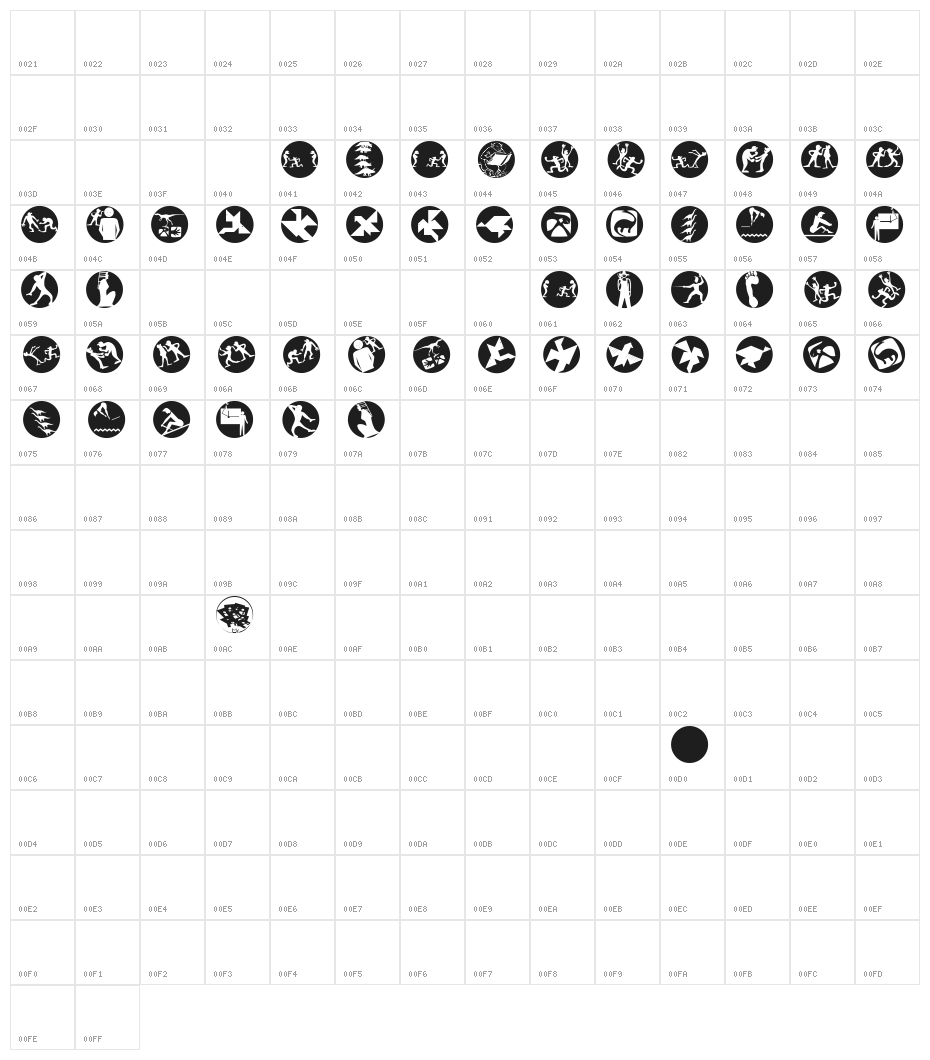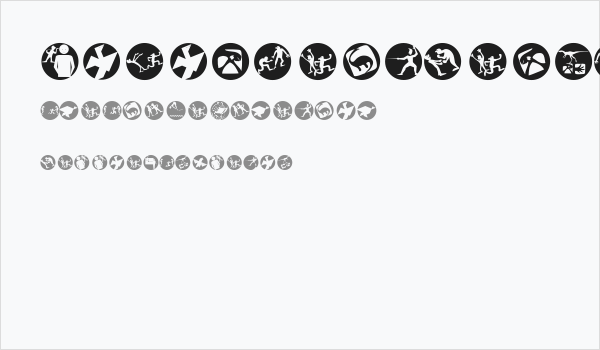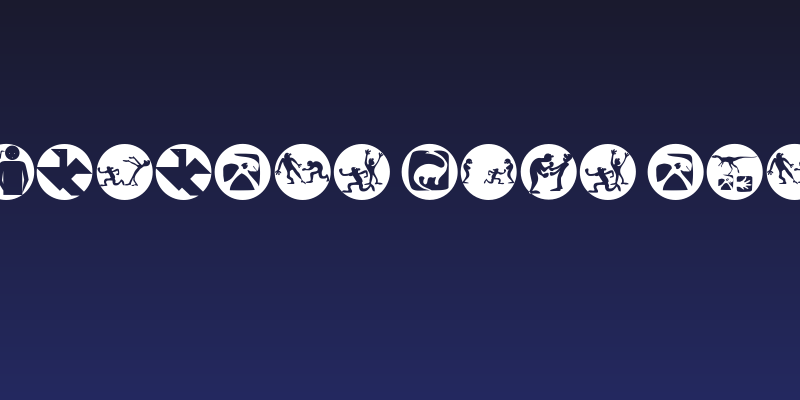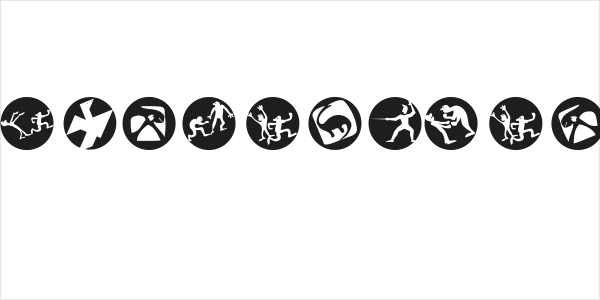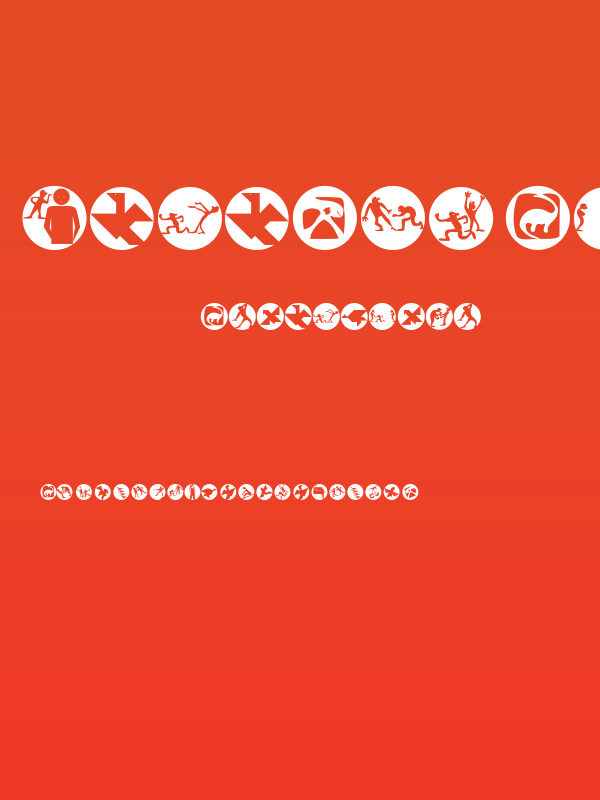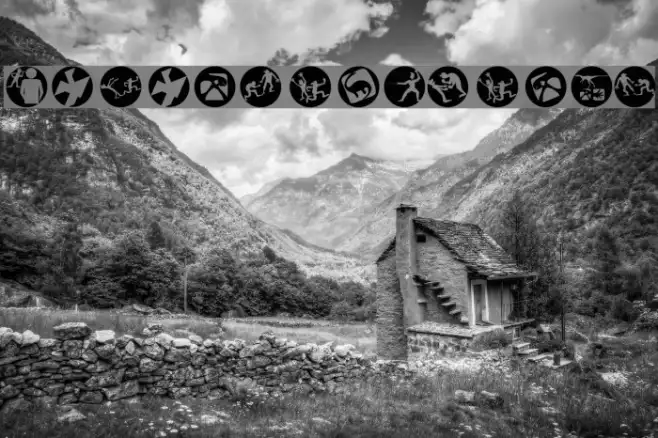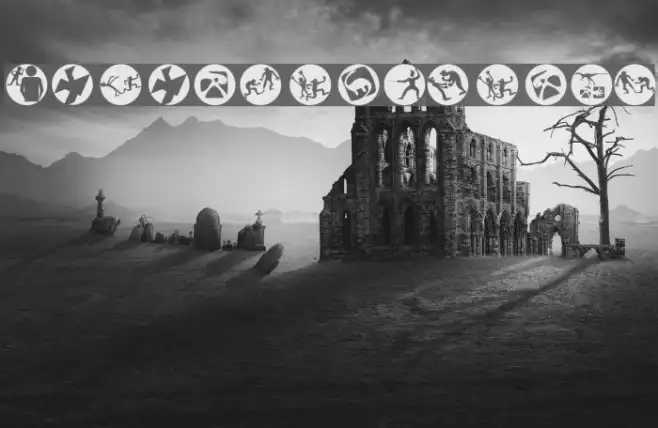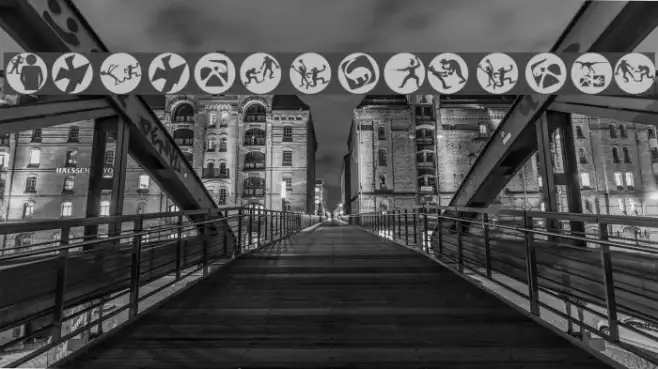
LogoSketchesMK Font
LogoSketchesMK Description
A collection of pictogram-style icons within solid black circles, each depicting simplified human figures or objects in dynamic, sketch-like linework, conveying various activities or symbols with a playful, hand-drawn aesthetic.
| Overall Style | Decorative, Playful, Hand-drawn |
| Use Case | Logos, Icons, Event Graphics, Posters |
| Proposed Projects | Sports branding, event signage, educational materials, playful infographics, children's activity books. |